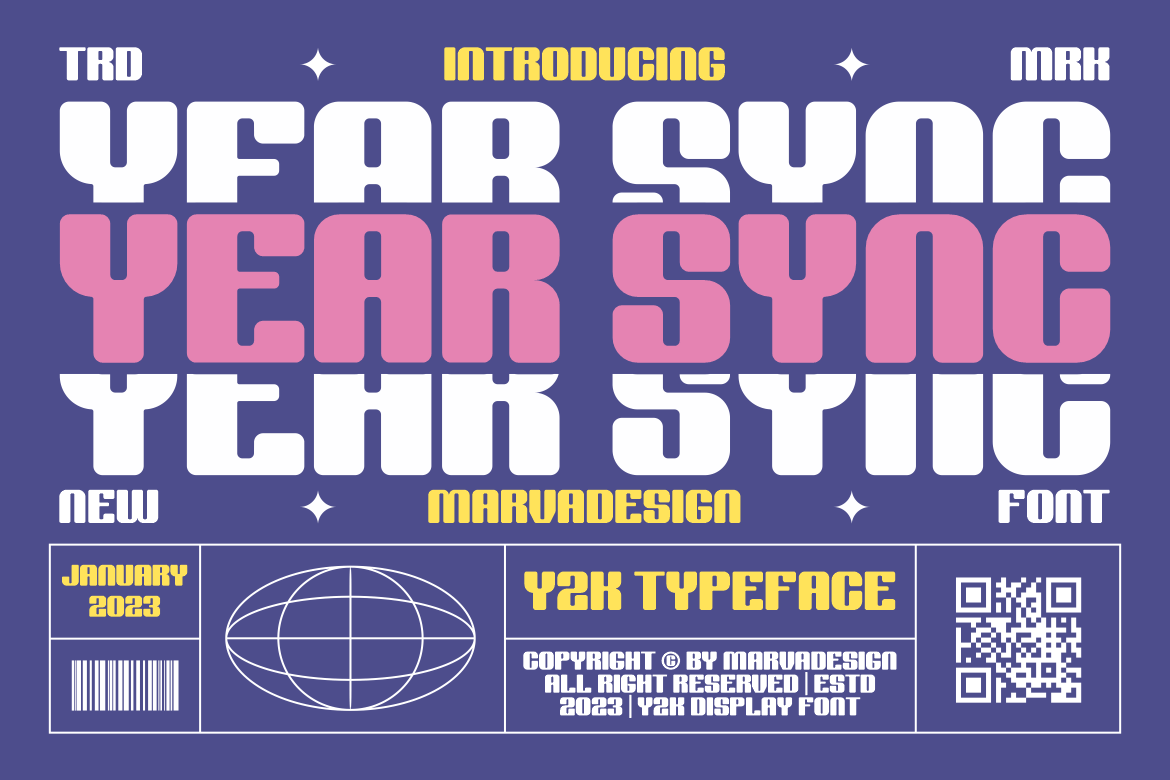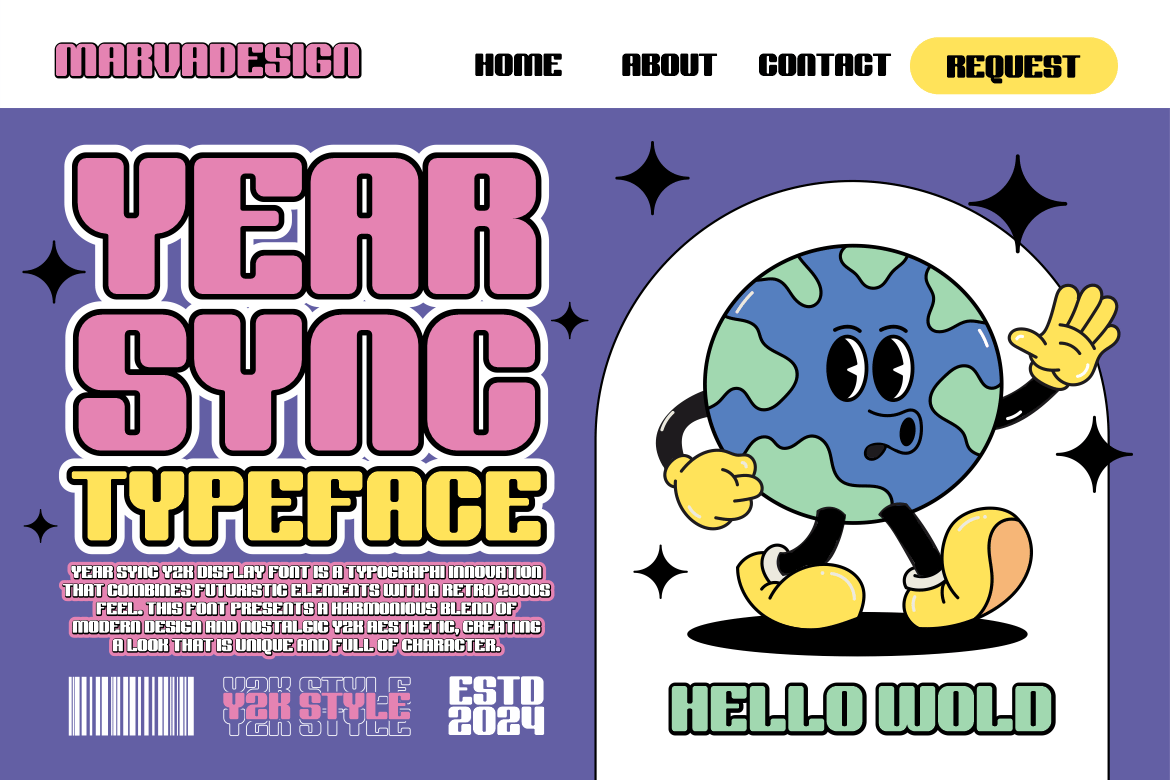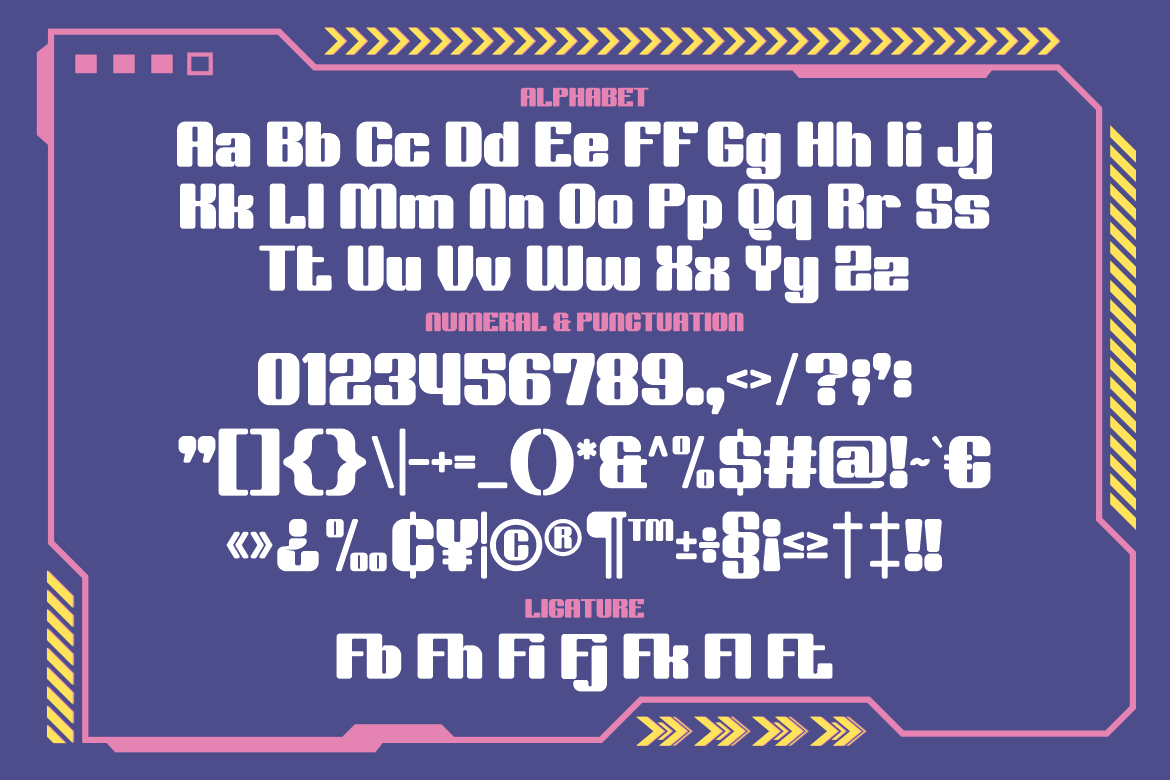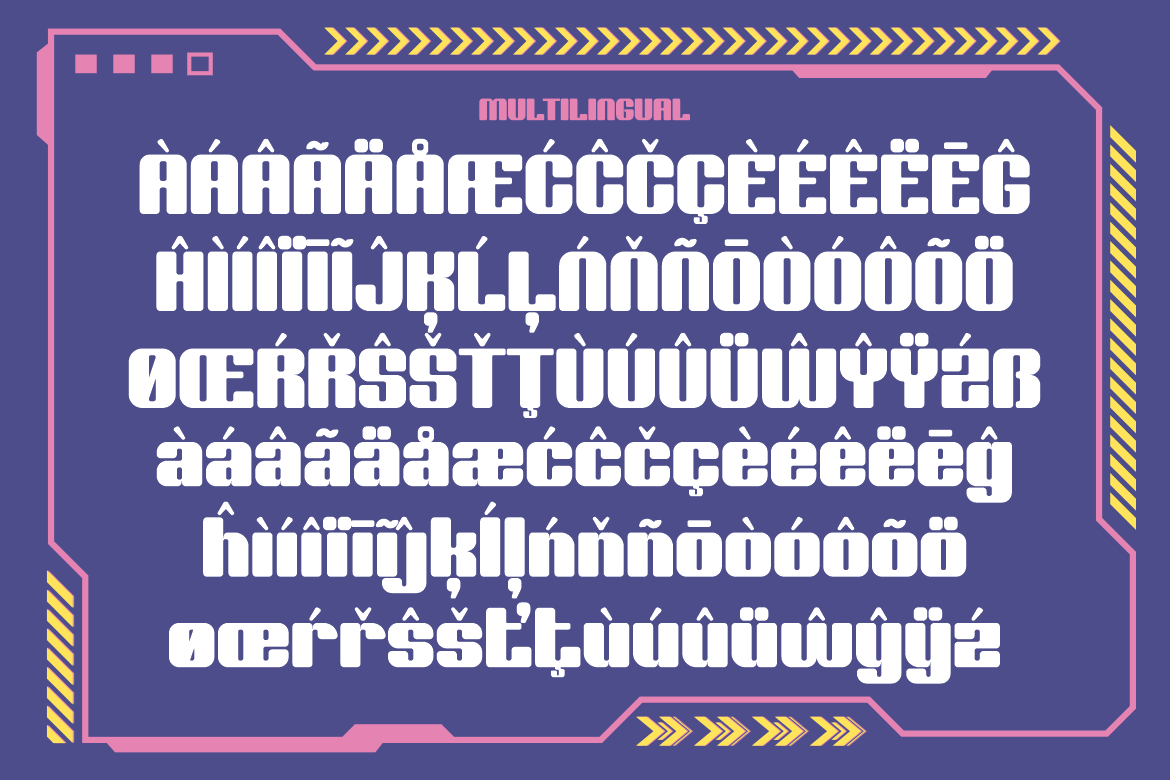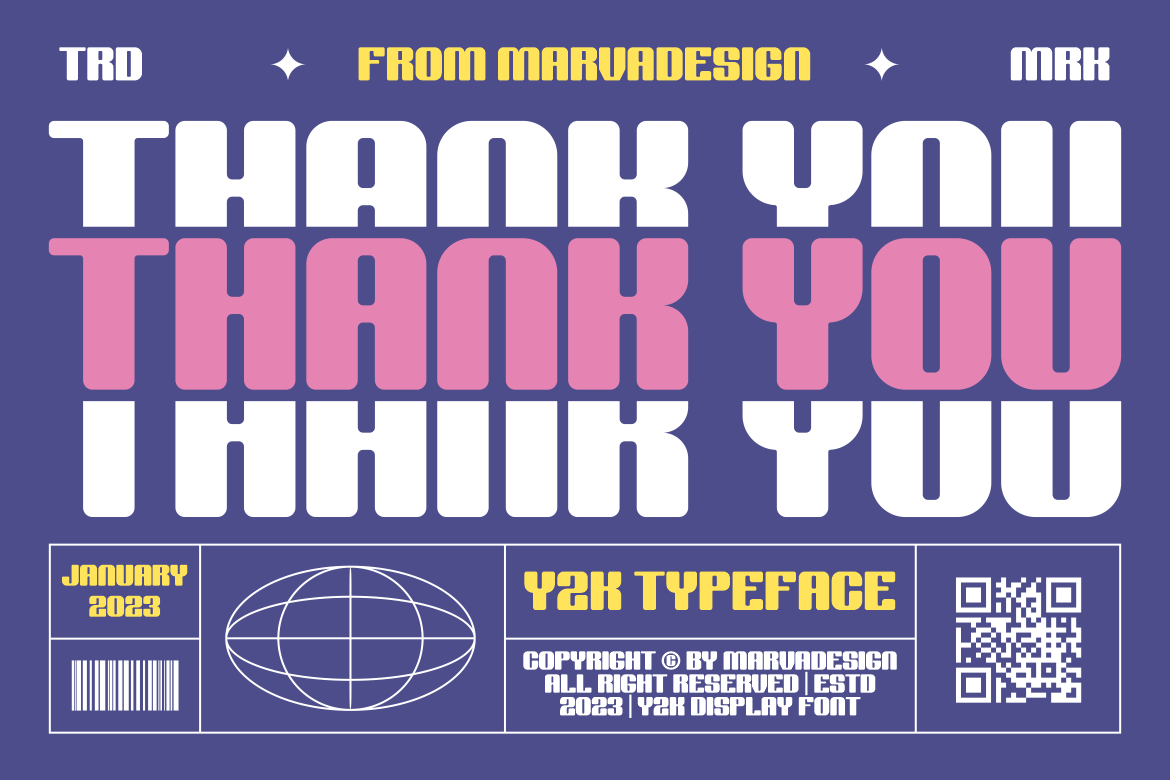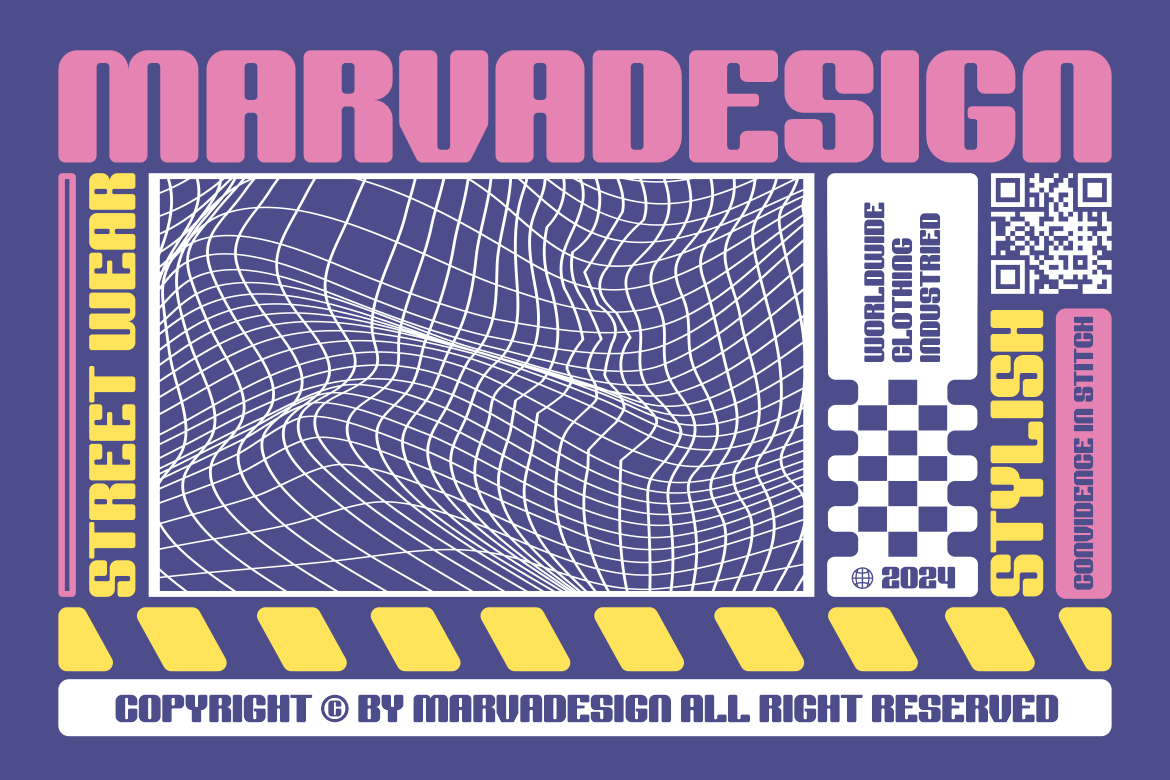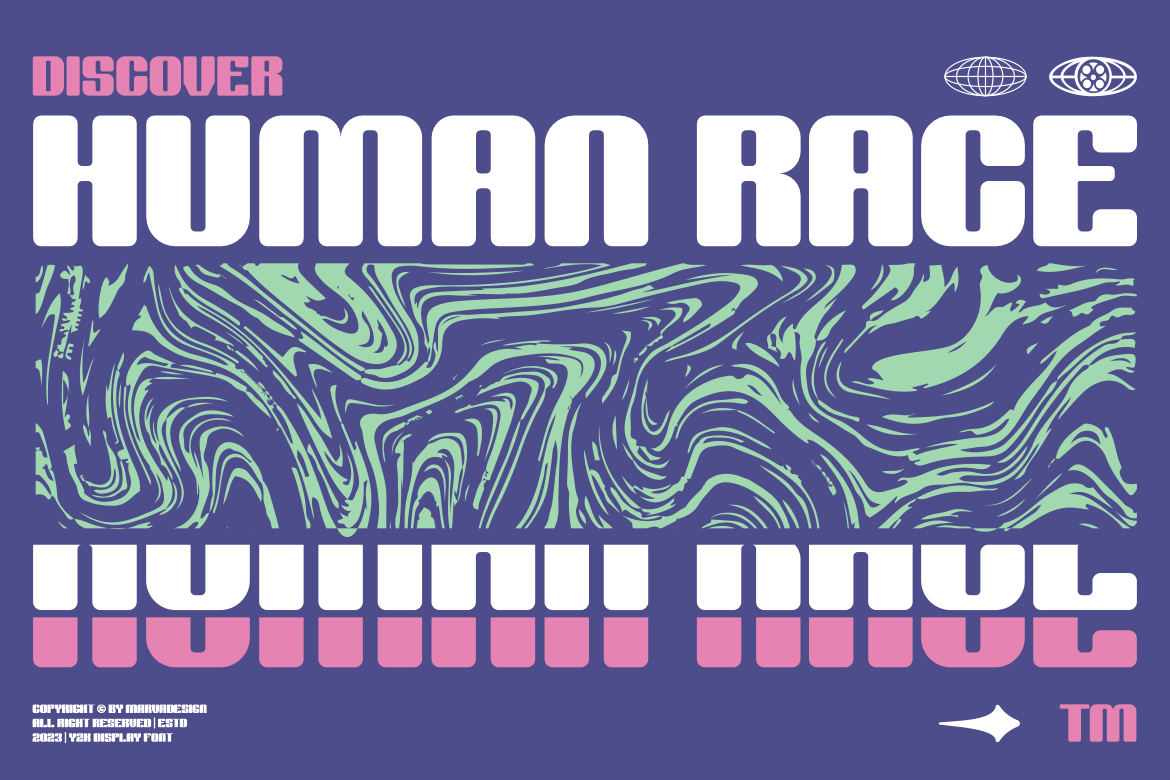
Year Sync – A Modern Y2K Font
Introducing our new product Year Sync Font – A Modern Y2K Font
Year Sync Font – A Modern Y2K Font authentic display font. The font is suitable for any branding project like logo, Template Design, Product and many more. outstanding in a wide range of contexts.